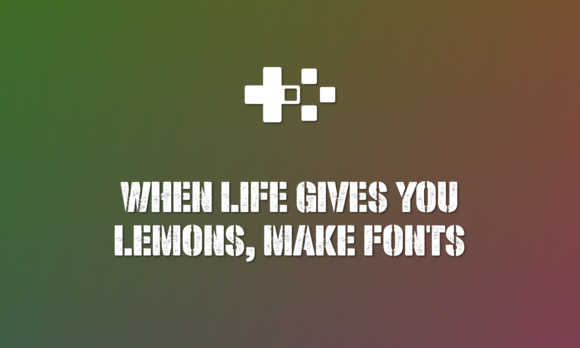
Introduction to Shoutyperson Font
Do you remember that moment when you stumbled upon the perfect design element for your creative project? Maybe it was a quirky illustration, a bold color palette, or a font that screamed ‘I’m here to make a statement!’ For designers, finding the right font can be a game-changer, and that’s exactly what the Shoutyperson Font offers.
With its bold, all-caps display style, the Shoutyperson Font is the perfect addition to any design project. Whether you’re working on a digital design, crafting a greeting card, or creating a presentation, this font is sure to bring a touch of trendiness to your work. And the best part? It’s available for free download, making it an invaluable design resource for creatives on a budget.
So, what makes the Shoutyperson Font so special? Its high-quality design and transparent background make it easy to work with, allowing you to focus on bringing your creative vision to life. In this article, we’ll dive deeper into the world of Shoutyperson Font and explore its many uses and benefits for designers.
Key Features of Shoutyperson Font
- Unique and bold font style, perfect for creative projects and designs that require a loud and attention-grabbing look.
- High-quality font with a transparent background, ideal for use on images, videos, or other design resources.
- Includes a comprehensive character set, covering a wide range of languages and special characters.
- Designed to be easily readable, even at small font sizes, making it a great choice for signage, headings, and titles.
Honest Review: Shoutyperson Font
I recently stumbled upon the Shoutyperson Font while searching for a unique design resource for a creative project, and I must say it’s been a game-changer. The font’s playful and bold style makes it perfect for anything from social media graphics to advertisements.
Here are some of the things that work well with the Shoutyperson Font:
- ✨ High-quality design that’s perfect for making a statement
- ✨ Transparent background, allowing for easy integration with any design
- ⚠️ Limited character set, which may not be ideal for longer blocks of text
- ⚠️ May not be suitable for professional or formal projects due to its playful nature
Overall, I’m impressed with the Shoutyperson Font and would definitely recommend it to designers looking for a fun and eye-catching design resource. Its high quality and free download make it an excellent addition to any design library.
Tips for Getting the Most Out of Shoutyperson Font
To get the most out of the Shoutyperson Font, use it in combination with other design elements, such as images and graphics, to create visually appealing designs. Experiment with different font sizes, colors, and styles to find the perfect look for your creative project.
The Shoutyperson Font is ideal for a variety of creative projects, including social media graphics, blog posts, and presentations. Its high-quality features and transparent background make it a versatile design resource for any project.